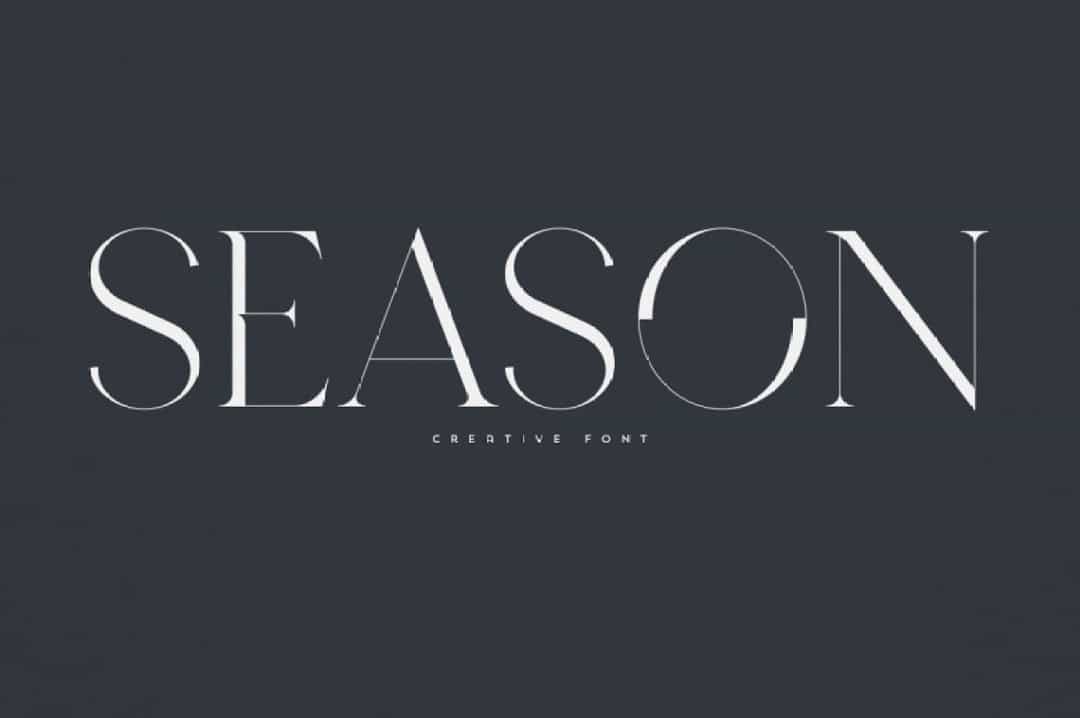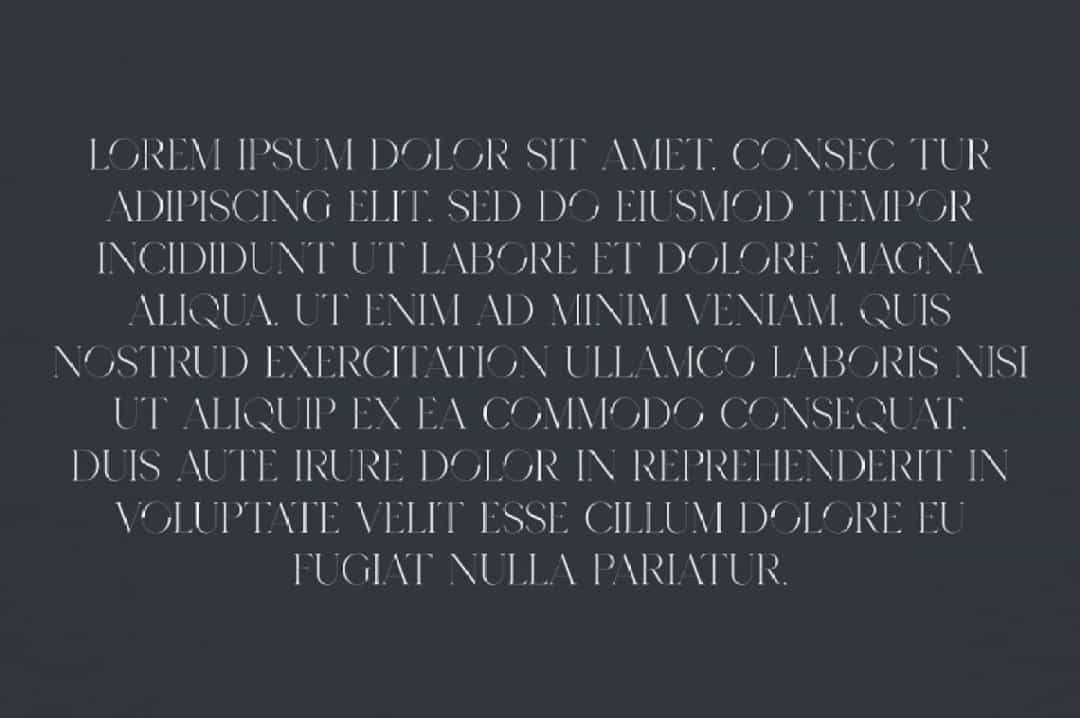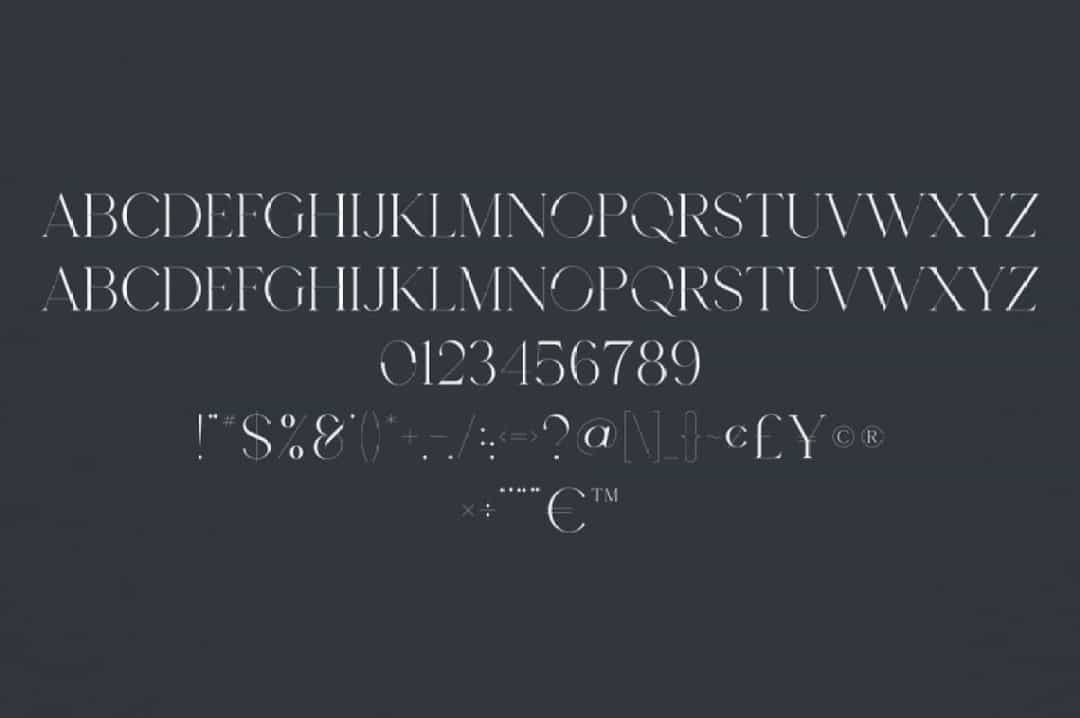
Season is an elegant and sophisticated serif font designed to elevate any typographic piece! Use it for headlines, logos, branding or simple text – its beauty will astonish! Season can make any headline stand out! Use this font in homeware designs, packaging of products magazines headlines for magazines or as an elegant text overlay on images – perfect!